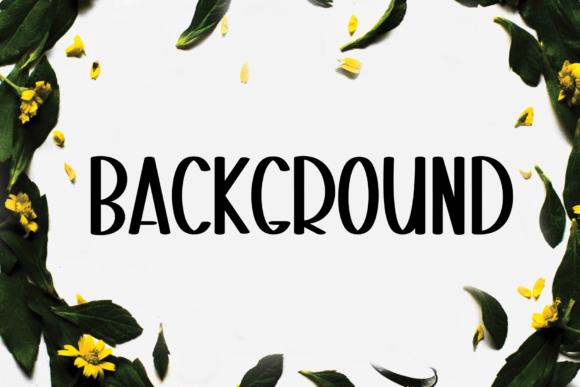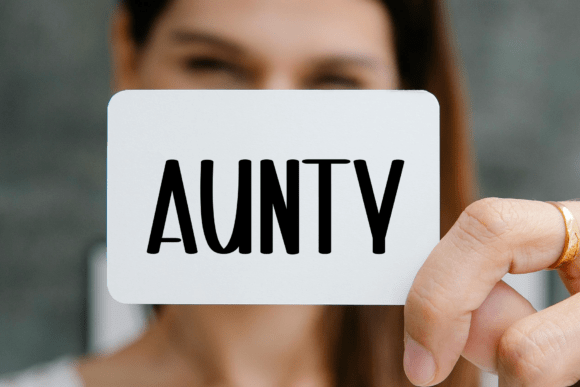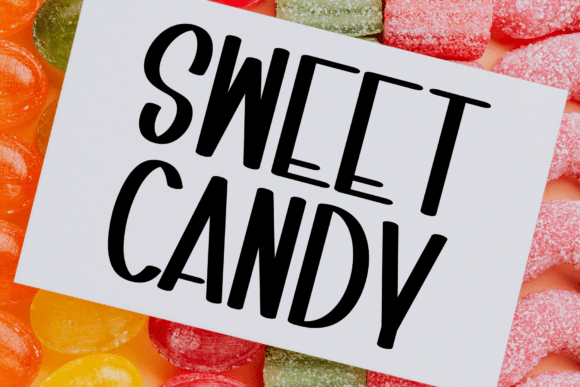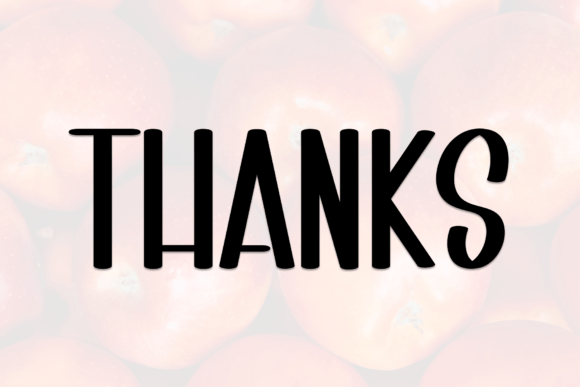
Introduction to Pienaple Font
Have you ever been working on a creative project, pouring your heart and soul into it, only to feel like something is missing? Maybe it’s the perfect font to tie everything together. For designers, finding the right font can be the difference between a good design and a great one. That’s where the Pienaple Font comes in – a sweet and beautiful handwritten display font that’s sure to add a cozy accent to any project.
With its unique characters that dance along the baseline, the Pienaple Font is a high-quality design resource that’s perfect for adding a touch of personality to your work. Whether you’re working on a digital project with a transparent background or a print design that needs a little extra flair, this font is sure to deliver. And the best part? It’s available for free download, making it an accessible and valuable resource for designers of all levels.
So why settle for a generic font when you can add a little extra magic to your design with the Pienaple Font? Let’s take a closer look at what makes this font so special and how you can use it to take your designs to the next level.
Key Features of Pienaple Font
- Designed with a modern and sleek aesthetic
Honest Review: Pienaple Font
I recently had the opportunity to work with the Pienaple Font, and I must say it’s a fantastic addition to any design project. ✨ This high-quality font is perfect for creatives looking to add a touch of elegance and sophistication to their work.
One of the standout features of the Pienaple Font is its transparent background, making it incredibly versatile and easy to use. Whether you’re working on a digital design project or a print-based campaign, this font is sure to impress.
Here are some of the key benefits of the Pienaple Font:
- High-quality design that’s perfect for a wide range of creative projects
While the Pienaple Font is an excellent choice for most design projects, there are a few limitations to be aware of: ⚠️
- May not be suitable for extremely bold or dramatic designs
- Limited customization options compared to other fonts
Overall, I’m thoroughly impressed with the Pienaple Font. It’s a fantastic design resource that’s sure to elevate any creative project. If you’re looking for a high-quality font that’s easy to use and customize, I highly recommend giving the Pienaple Font a try.
Tips for Getting the Most Out of Pienaple Font
To get the most out of the Pienaple Font, use it in conjunction with other design elements to create a cohesive look. Experiment with different font sizes, colors, and styles to add visual interest to your design project.
Common Use Cases for Pienaple Font
The Pienaple Font is ideal for a variety of design projects, including logos, branding materials, and marketing materials. Its high-quality design and transparent background make it a great choice for creating professional-looking designs.